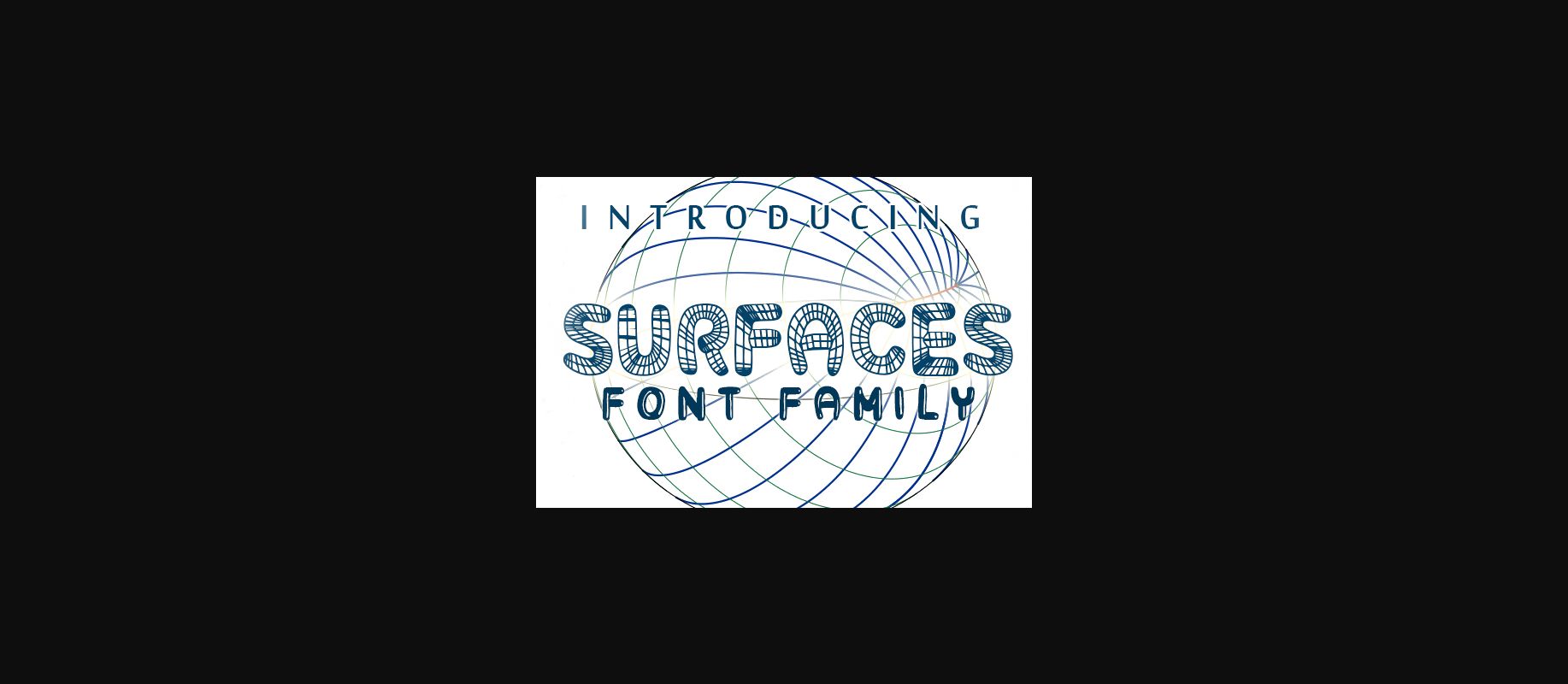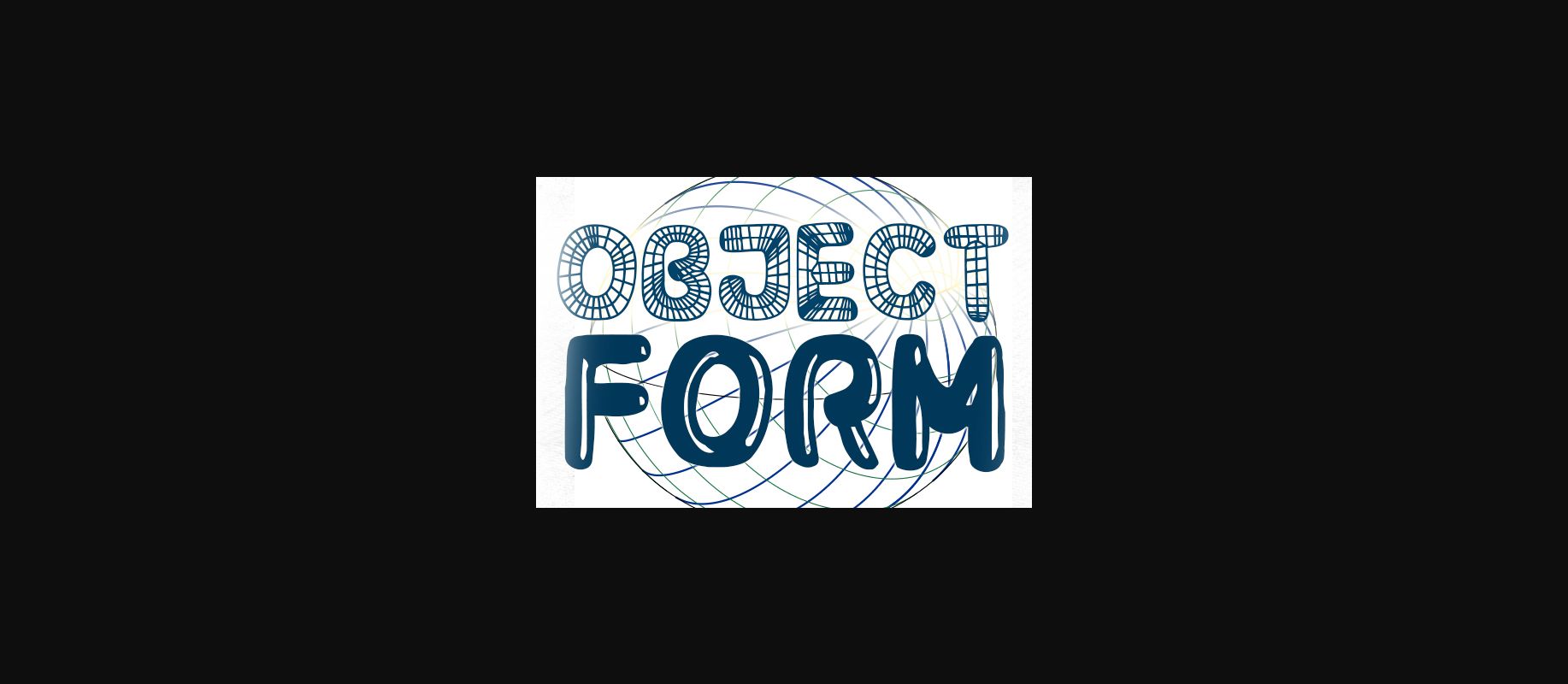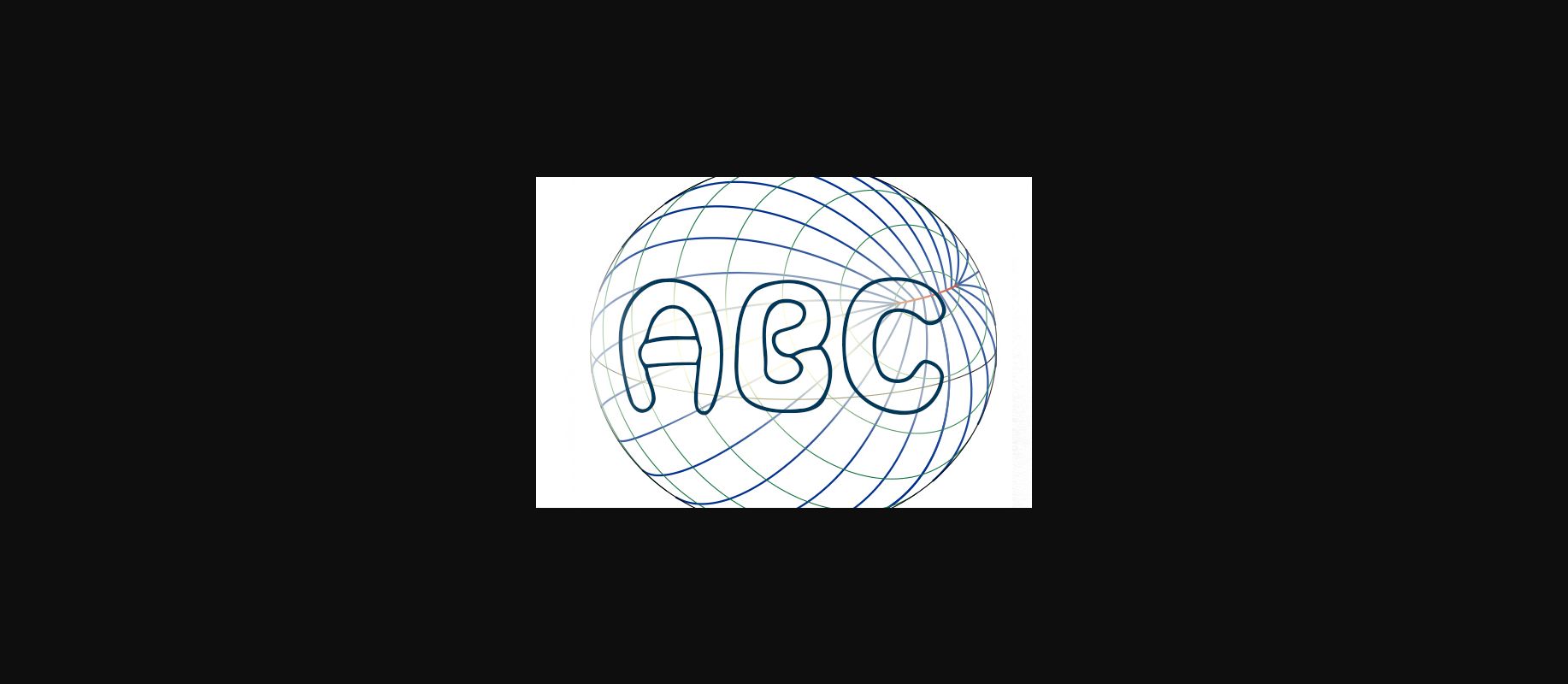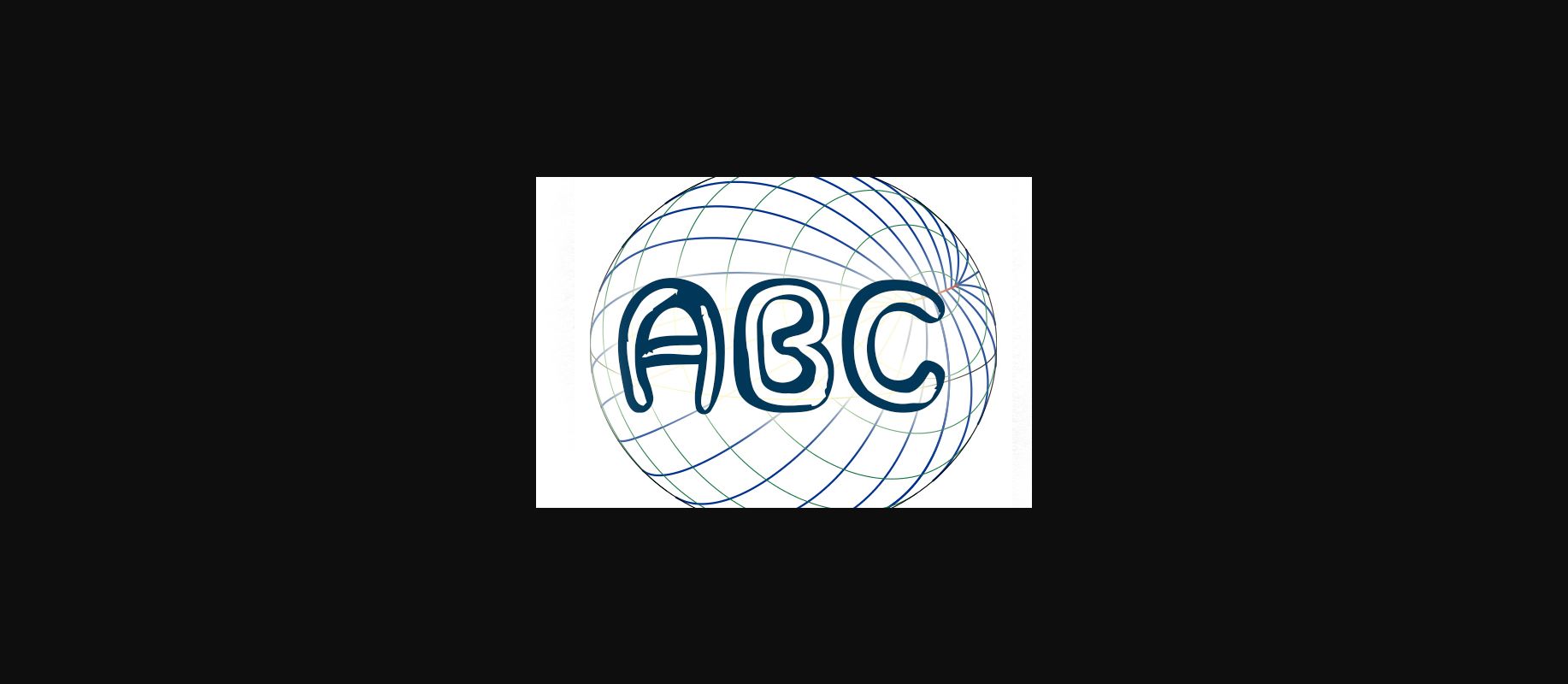
Surfaces Font
About Surfaces Font
Surfaces is a playful and dynamic decorative font that comes in various variants. It will look strong on every banner, print or poster.